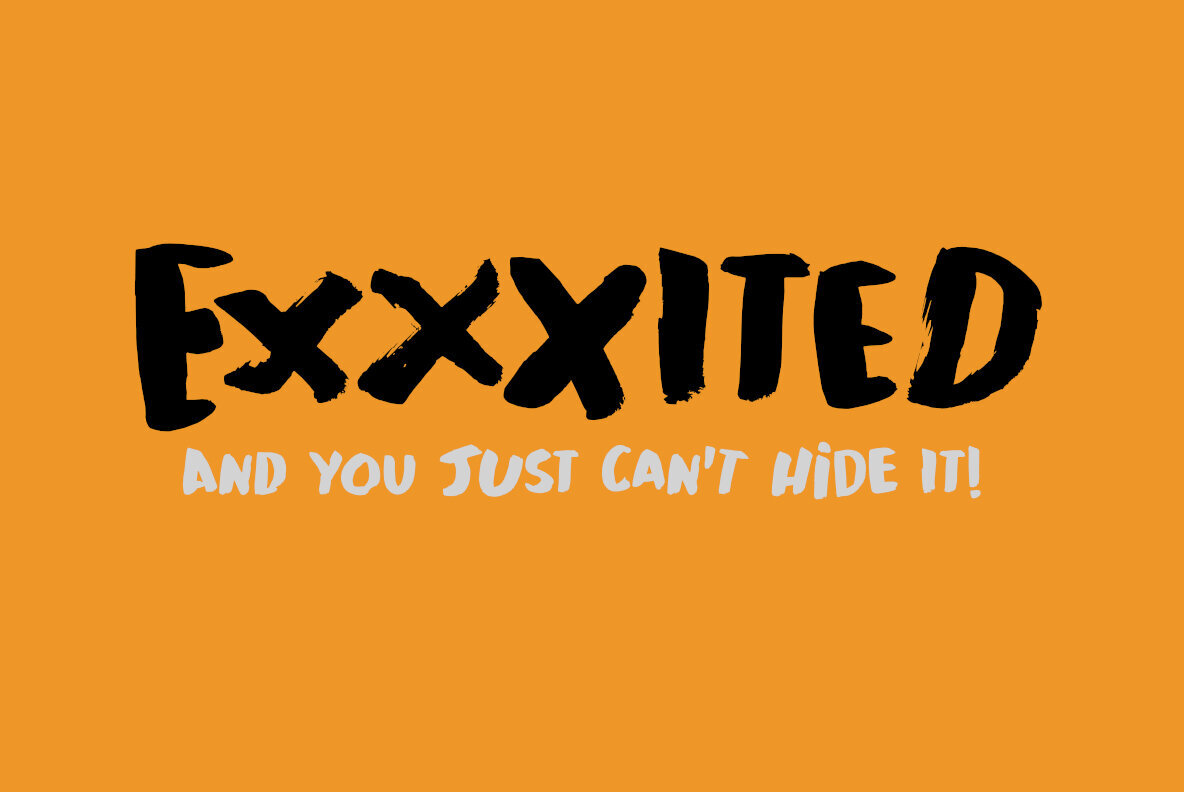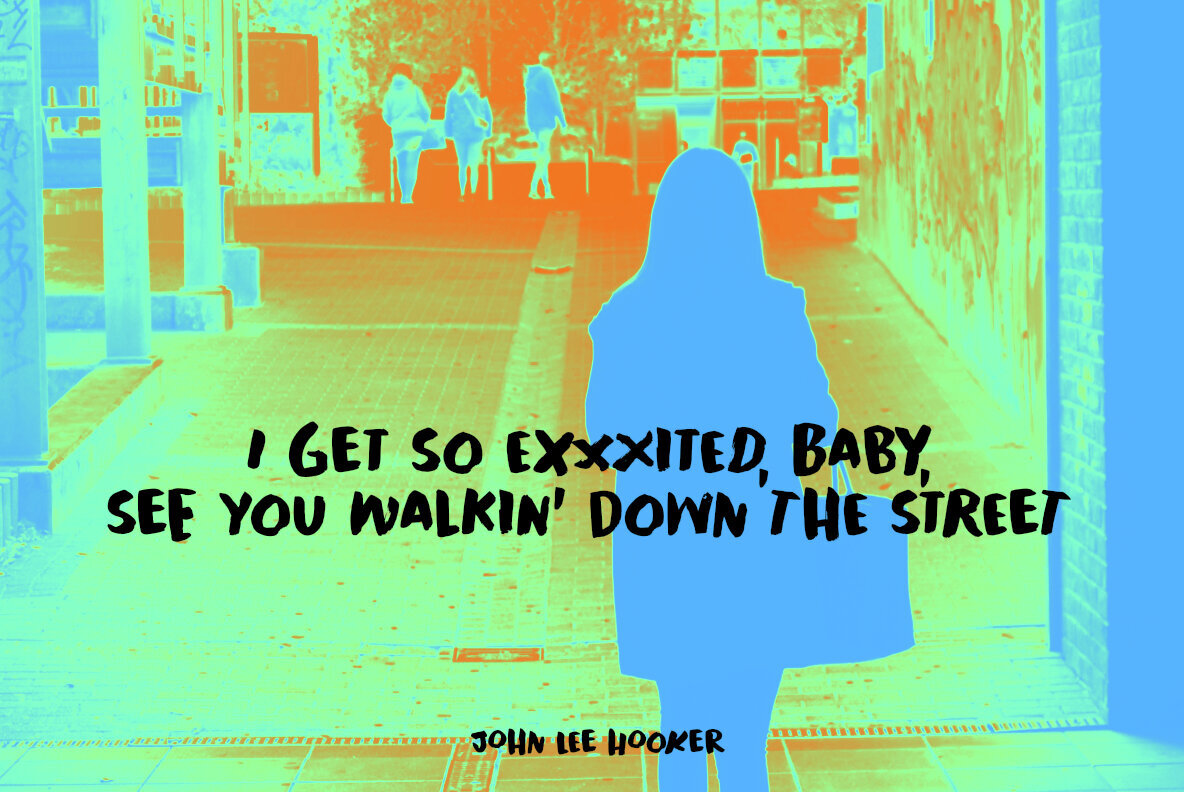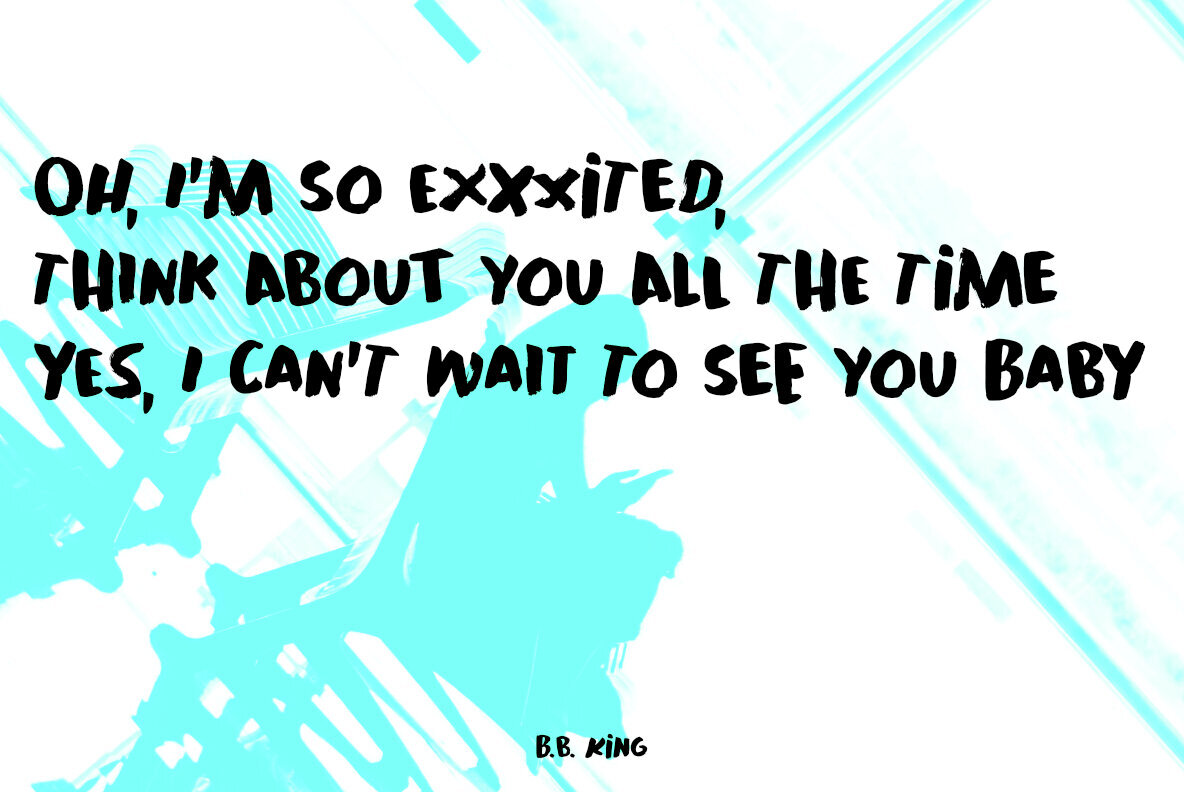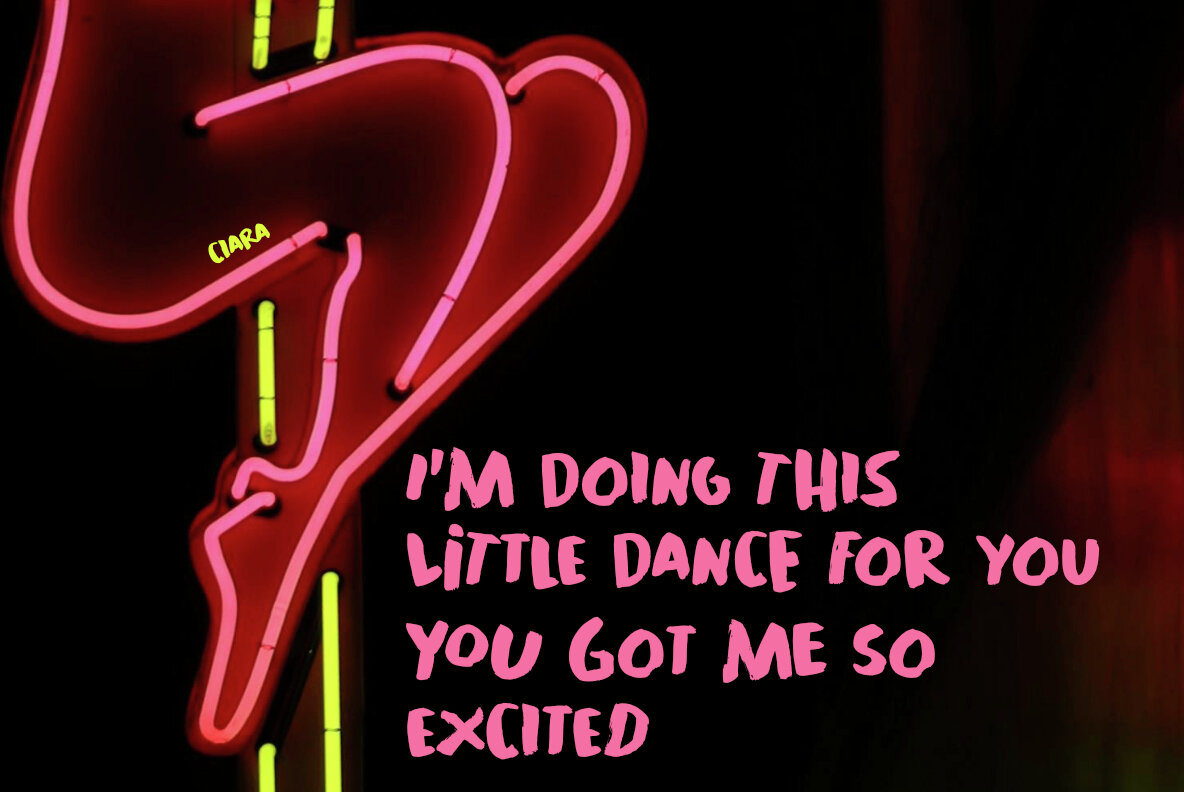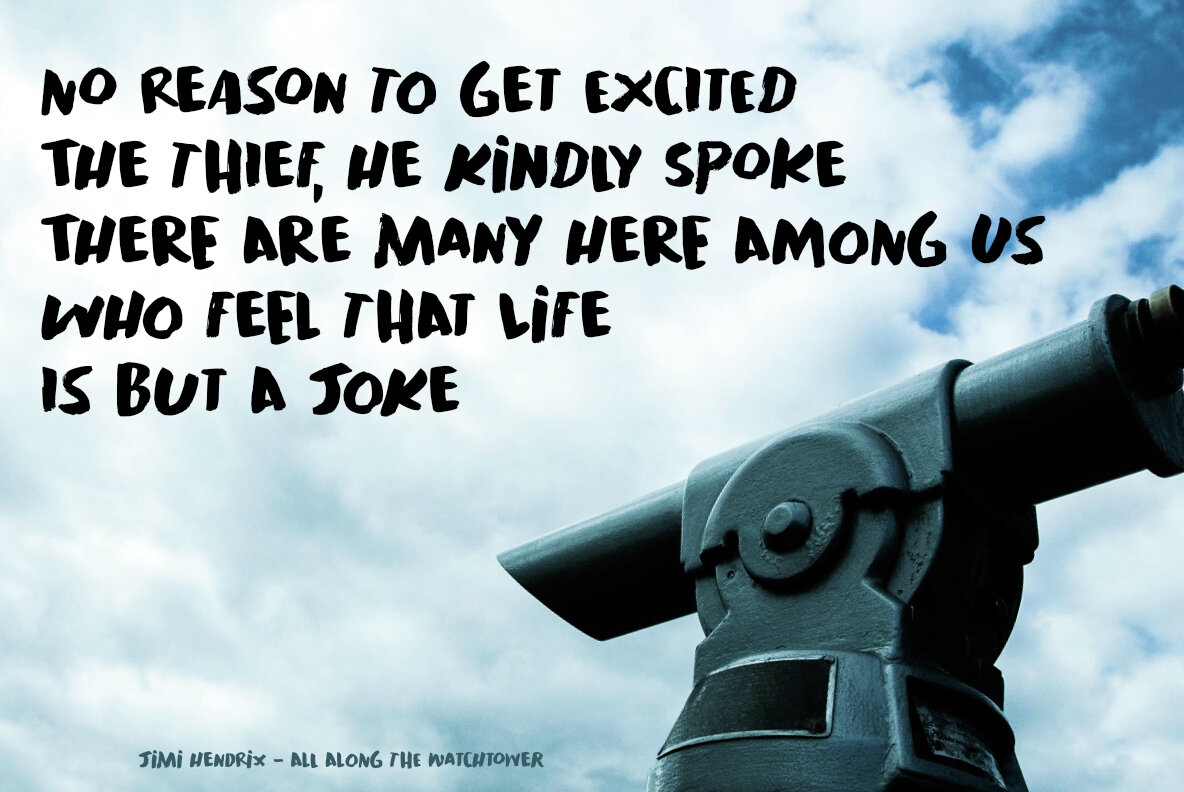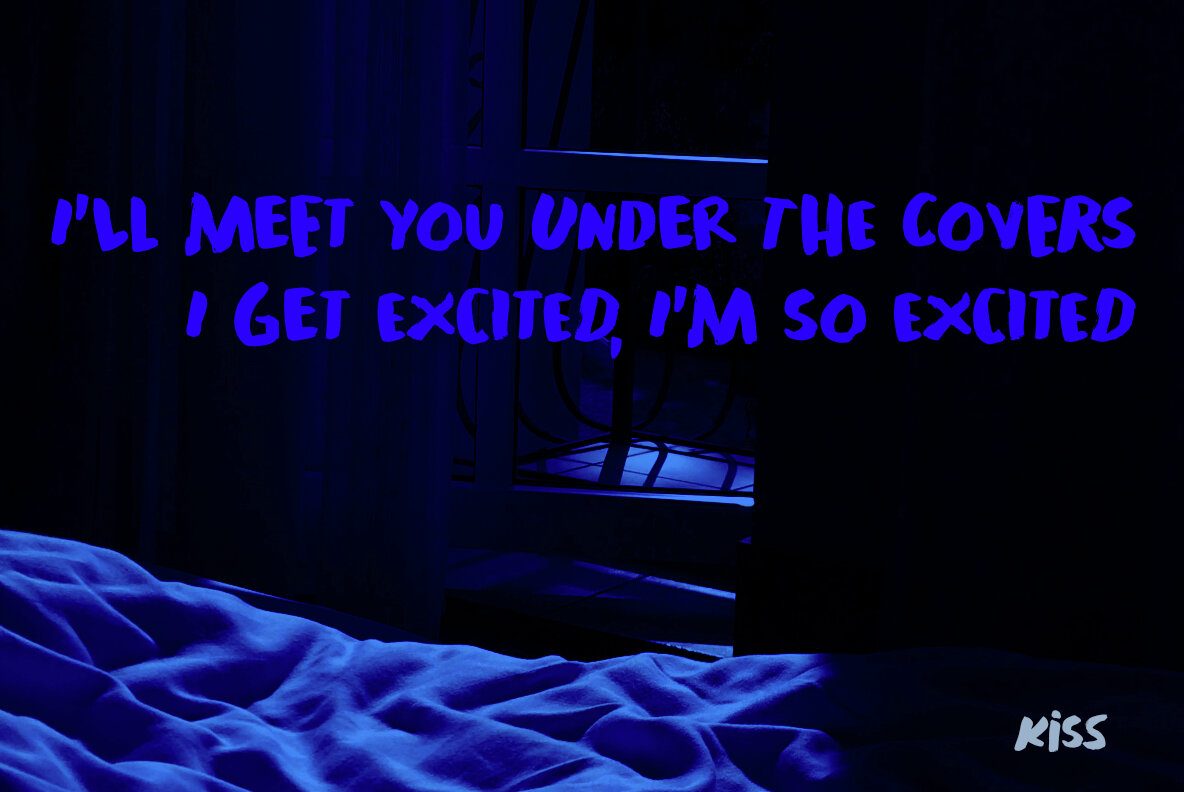
Exxxited Font
Exxxited Regular
Exxxited is a dynamic and bold typeface that captures attention with its robust and expressive character. Designed to be loud and engaging, it's perfect for projects demanding a dramatic flair, such as posters, book covers, and high-impact campaigns. This font defies the norms of traditional typography with its unconventional style, making it ideal for designers who want to make a statement.
Inspired by a distinct cultural contrast in communication, Exxxited isn't shy—it speaks out with emphasis and personality. While its name might suggest a playful take on enthusiasm, the design commands presence and intrigue. Ideal for creative professionals looking to deliver messages with vigor, this typeface will ensure your content stands out in any visual setting.